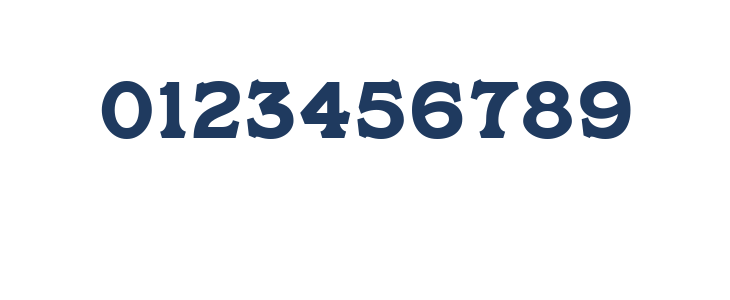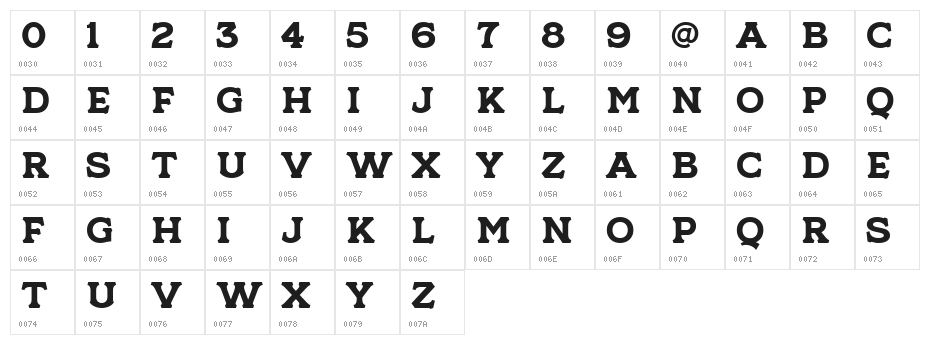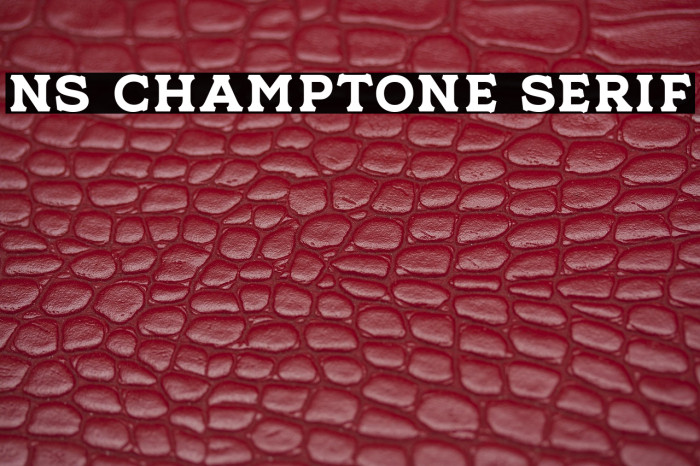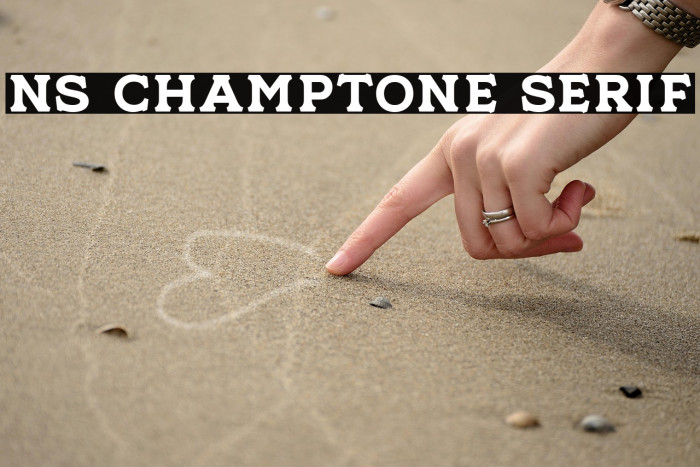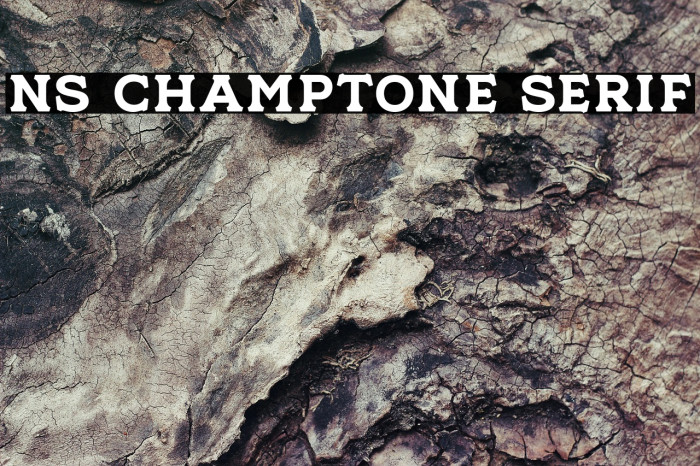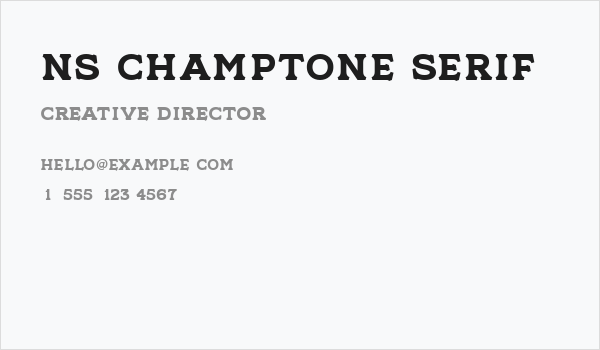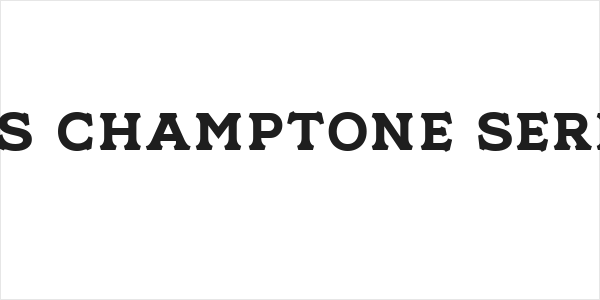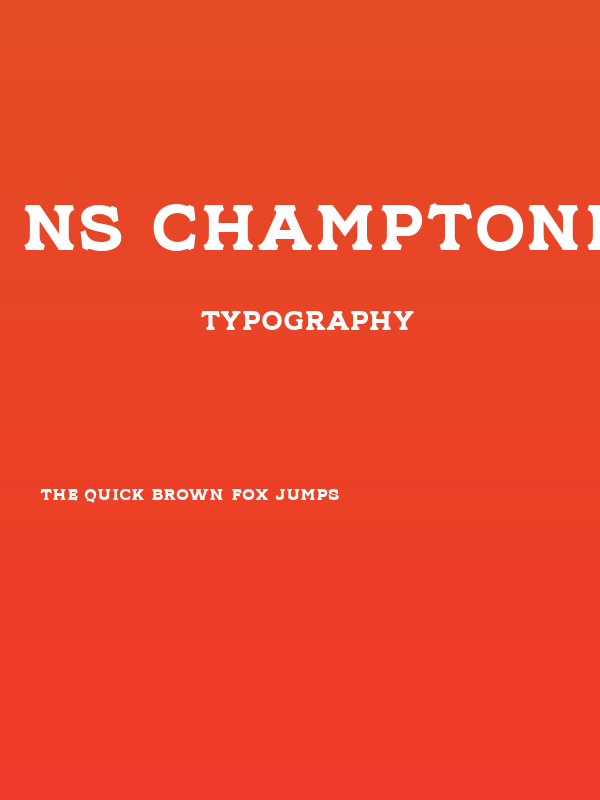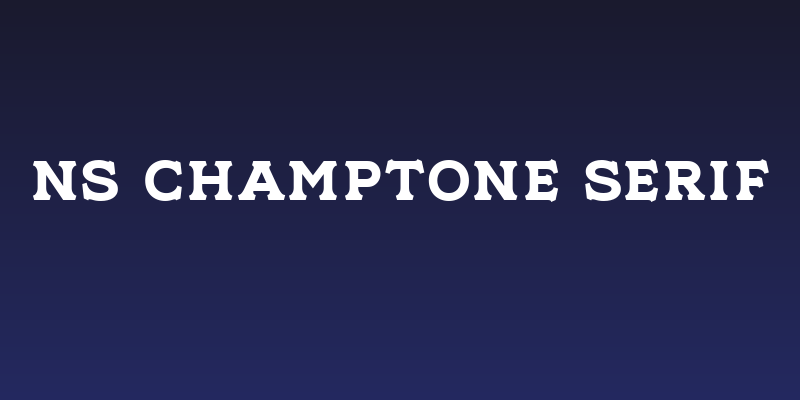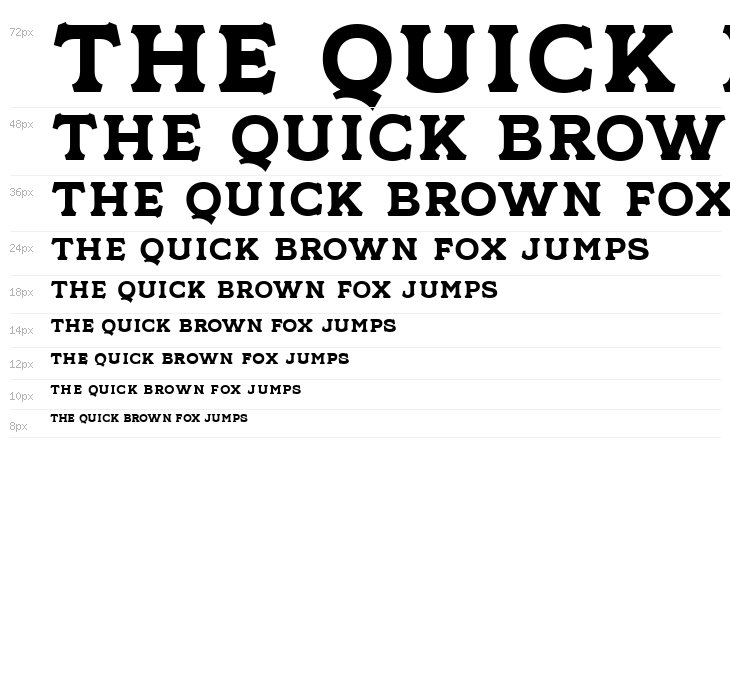
NS Champtone Serif Font
NS Champtone Serif Description
This font exhibits a bold and commanding presence with its strong, thick strokes and pronounced serifs. The characters are well-defined, featuring a classic serif style that adds a touch of elegance and tradition. The uppercase letters are particularly striking, with a robust and authoritative look, while the lowercase letters maintain consistency in style and weight. The numerals are equally bold, ensuring readability and impact. This font is versatile, suitable for both modern and vintage-themed projects, offering a timeless appeal.
Overall StyleClassic
Use CaseHeadlines, Logos, Editorial design
Proposed ProjectsIdeal for branding, headlines, posters, and editorial design where a strong, traditional serif is needed.